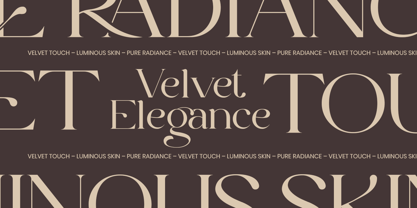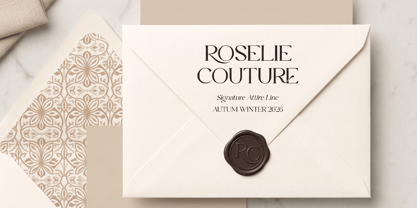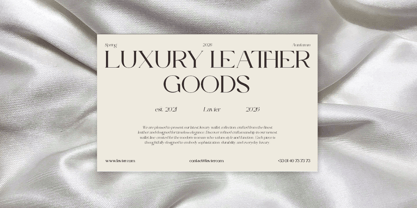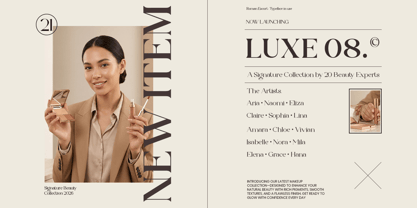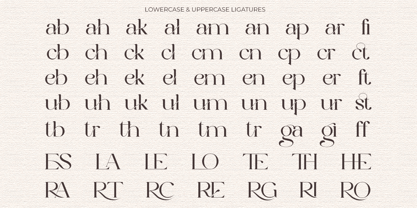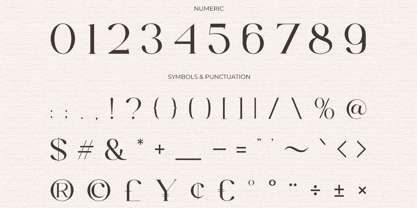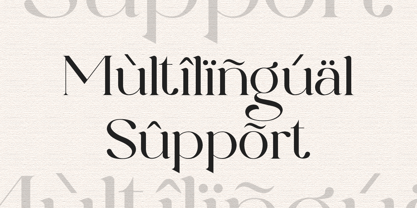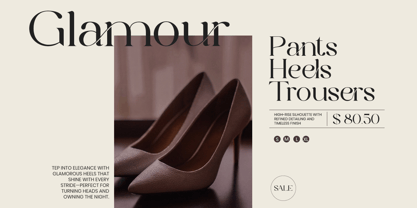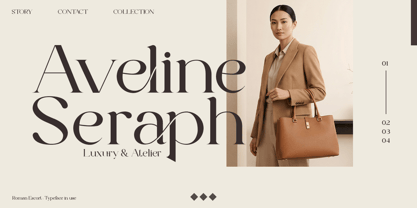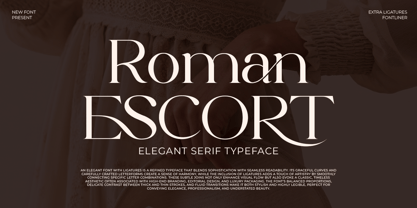
Roman Escort
by Font Liner
The Roman Escort Font Family was designed by Ghina Luthfiarieska and published by Font Liner. Roman Escort contains 2 styles and family package options. More about this family
Roman Escort is an elegant serif typeface that embodies timeless sophistication and refined beauty. Drawing inspiration from classic editorial typography and modern luxury branding, this font showcases graceful curves and high-contrast strokes, resulting in a polished and premium appearance. Its distinctive letterforms exude elegance, striking a balance between classic and contemporary styles. Equipped with beautiful ligatures and smooth character connections, Roman Escort enhances typographic flow and adds an artistic touch to every composition. This typeface is perfectly suited for fashion branding, wedding design, editorial layouts, and high-end packaging. Whether utilized for headlines or logo design, it delivers a refined and luxurious impression. Crafted with meticulous attention to detail and visual harmony, Roman Escort supports multilingual characters, ensuring professional usability across global projects. It is the ideal choice for designers aiming to create elegant, timeless, and visually captivating designs.
Designers: Ghina Luthfiarieska
Foundry: Font Liner